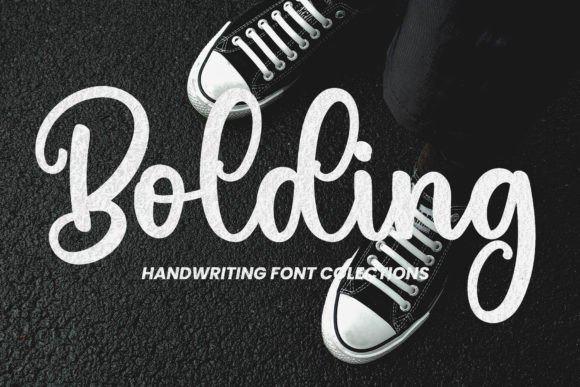
Journey into the realm of sophistication with Bolding Font, a meticulously crafted script font family that exudes elegance and charm. Step into a world where your designs and creations are infused with a touch of luxury and warmth. Let Bolding Font be the muse that ignites your creativity and brings your visions to life.
Unleash the allure of Bolding Font, a font family that is not just a tool, but a pathway to artistic expression. Its delicate curves and graceful strokes are reminiscent of a gentle summer breeze, evoking a sense of joy and romance that will captivate your audience. Experience the transformative power of typography as Bolding Font elevates your designs to new heights of sophistication.
With Bolding Font at your fingertips, you'll discover endless possibilities for your creative endeavors. Whether you're designing enchanting logos, crafting heartfelt wedding invitations, creating captivating greeting cards, or bringing life to fashion lookbooks, Bolding Font will seamlessly blend with your vision, adding a touch of understated luxury that will leave a lasting impression.
Explore the versatility of Bolding Font, a font family that effortlessly adapts to a multitude of design styles. Dive into the world of branding and let Bolding Font become the cornerstone of your visual identity, creating a cohesive and unforgettable brand experience. Its versatility extends to marketing promotions, where Bolding Font's elegance will command attention and elevate your messages.
Embrace the beauty of Bolding Font and witness the transformation of your creative projects. Its sweet and cursive nature will add a touch of romance and charm to any design, leaving your audience captivated by its timeless appeal. Allow Bolding Font to be your creative companion, guiding you through a world of visual storytelling where your ideas take center stage.